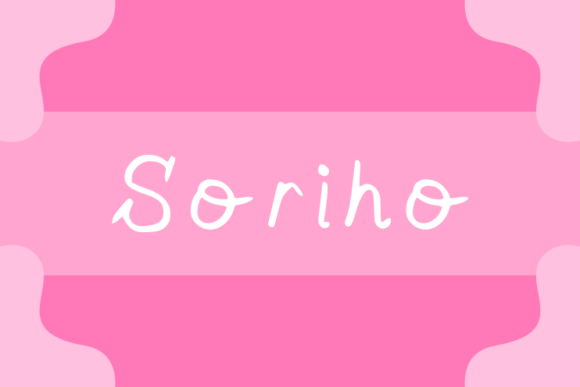
Attention all creative enthusiasts! Introducing Soriho Font, the epitome of elegance and luxury, meticulously crafted to elevate your designs to unparalleled heights. A symphony of style and sophistication, Soriho's captivating strokes will ignite your imagination and leave a lasting impression on your audience.
Unleash your inner artist with Soriho's versatile form, perfect for adding an air of sophistication to logos, book or movie titles, and fashion brands. Its intricate curves and modern flair will effortlessly enhance any magazine, clothing design, or quote. Let Soriho be the radiant star of your creative universe, transforming your projects into masterpieces.
Step into a world of visual enchantment with Soriho Font, the gateway to captivating posters and stunning headings. Its dynamic style will breathe life into your marketing campaigns, captivating attention and leaving a lasting mark on the minds of your target audience.
Embrace the power of Soriho, the font that will elevate your designs to new heights. Experience the beauty of perfect harmony in every letterform, where precision meets creativity. Let Soriho be your guide as you embark on a journey of visual storytelling, crafting designs that resonate and inspire.